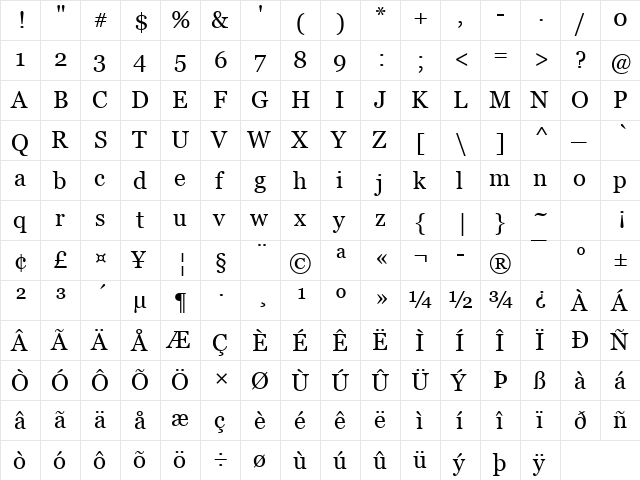
Georgia Regular
| Foundry | Carter & Cone |
| Designer | Matthew Carter |
Design Context for Georgia Typeface
Georgia offers clean, dependable letterforms without strong stylistic allegiance, making it a practical choice for designers who need flexibility.
Pro Tip: Pair Georgia with a font of contrasting weight or personality to build a more expressive typographic hierarchy.